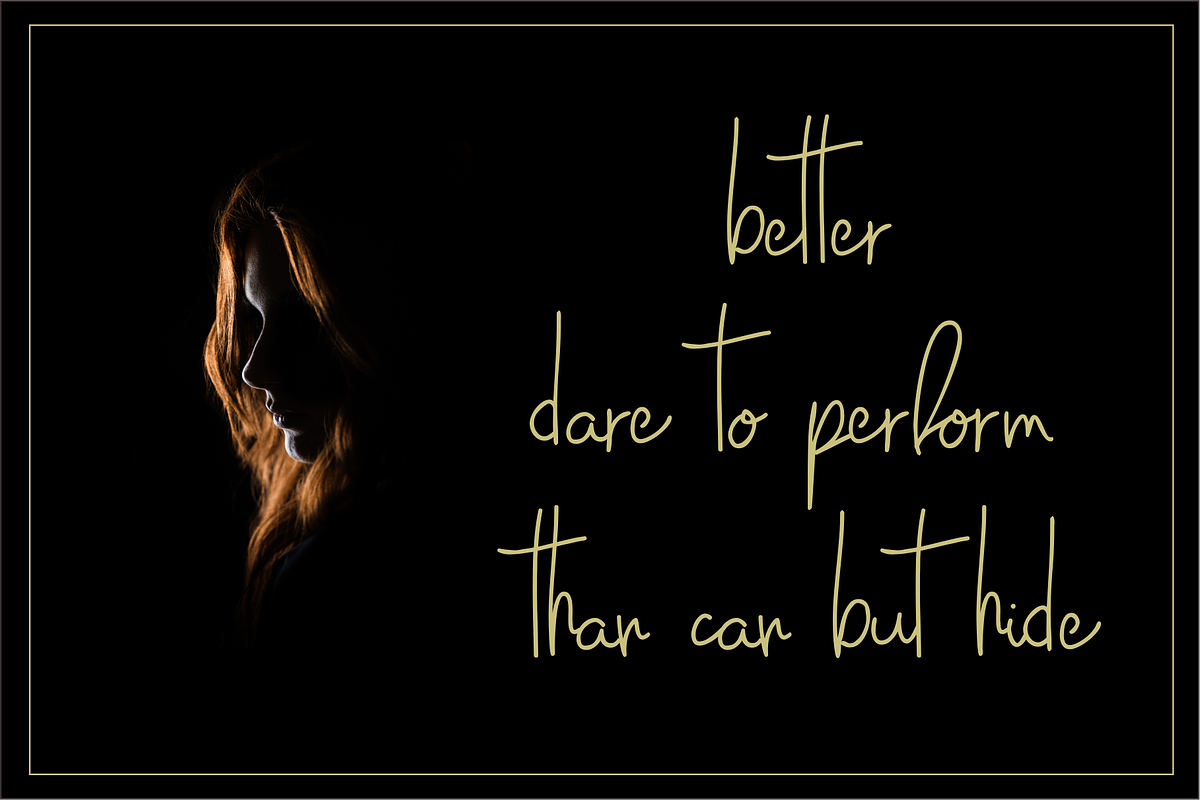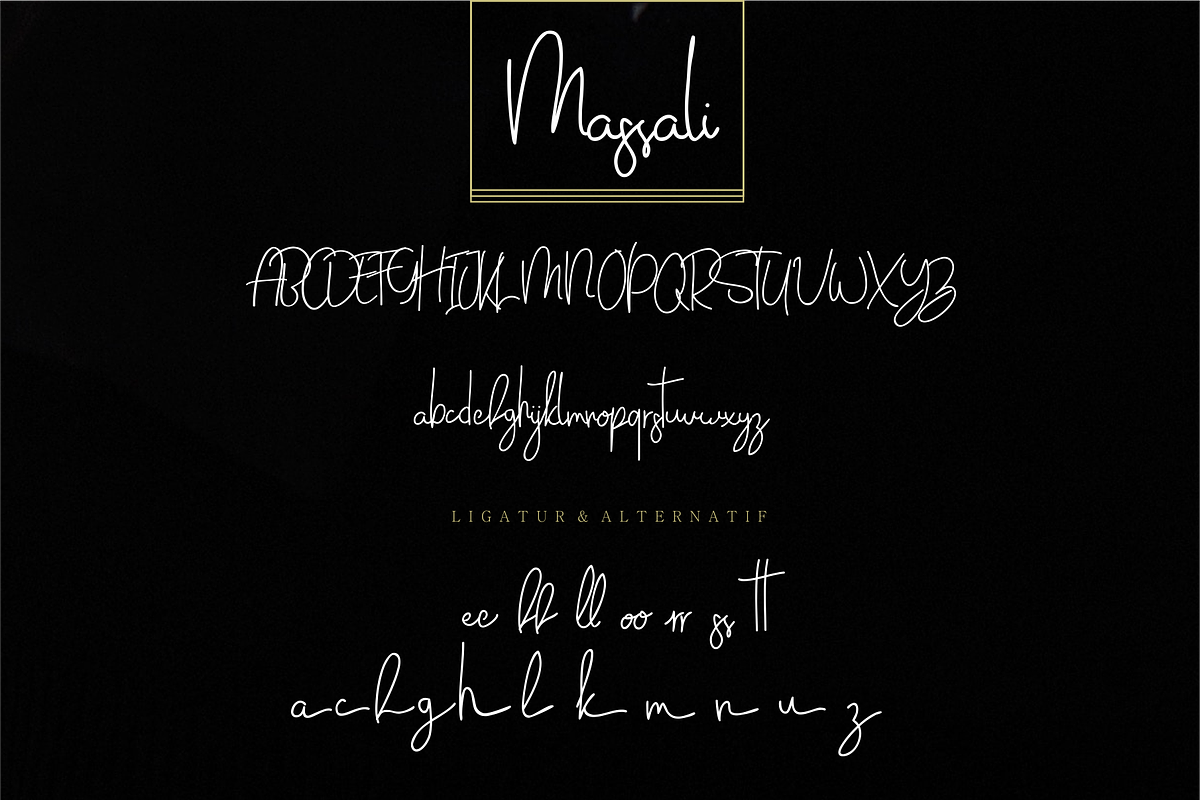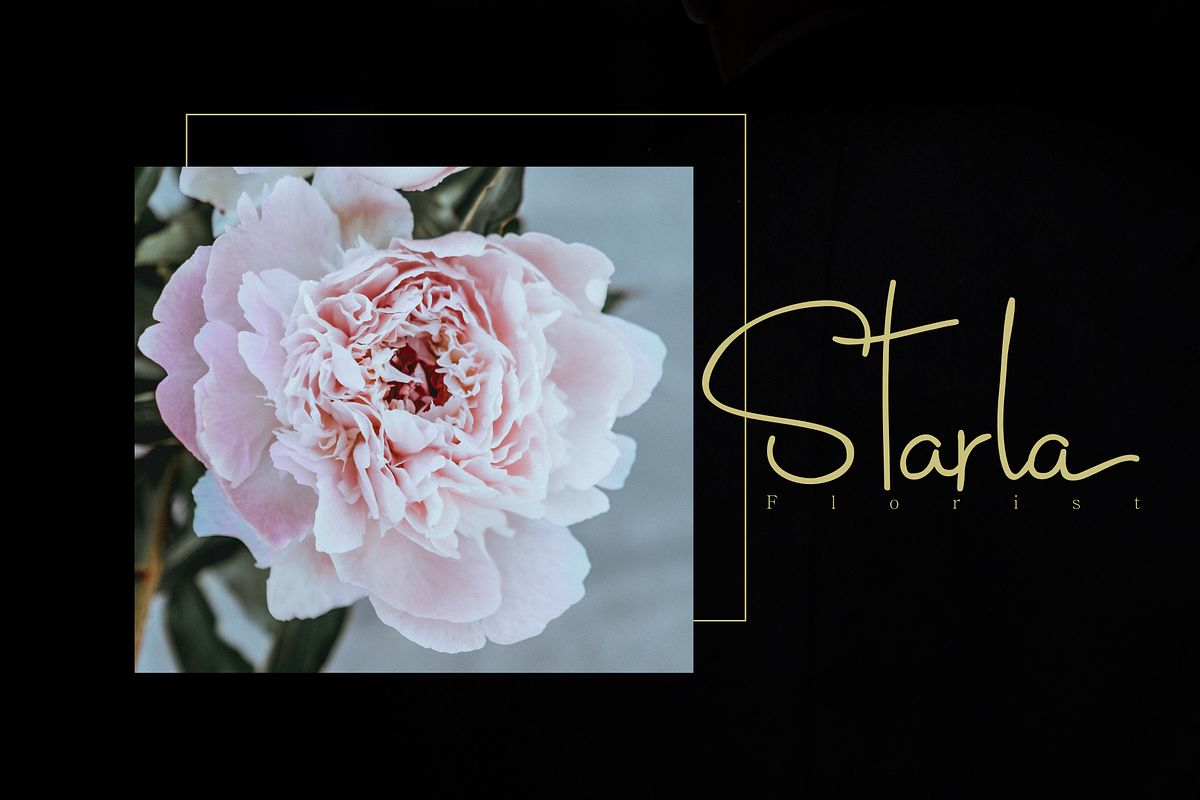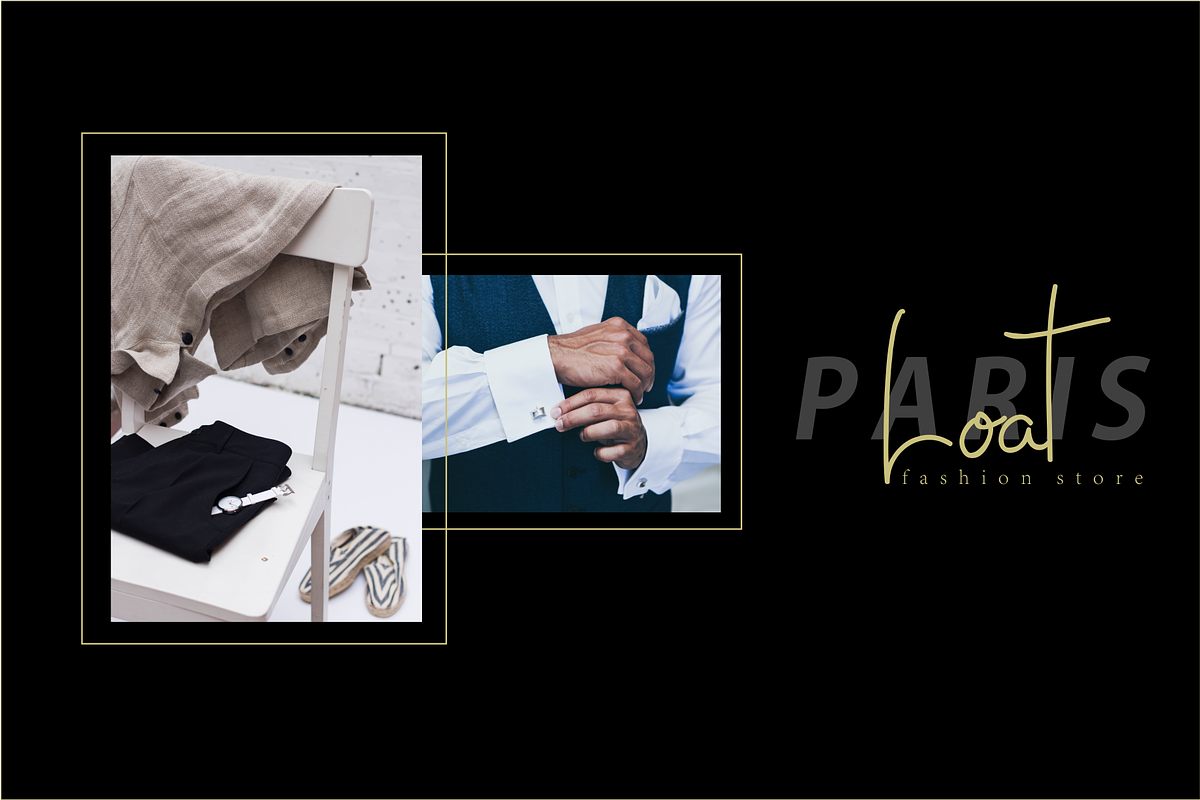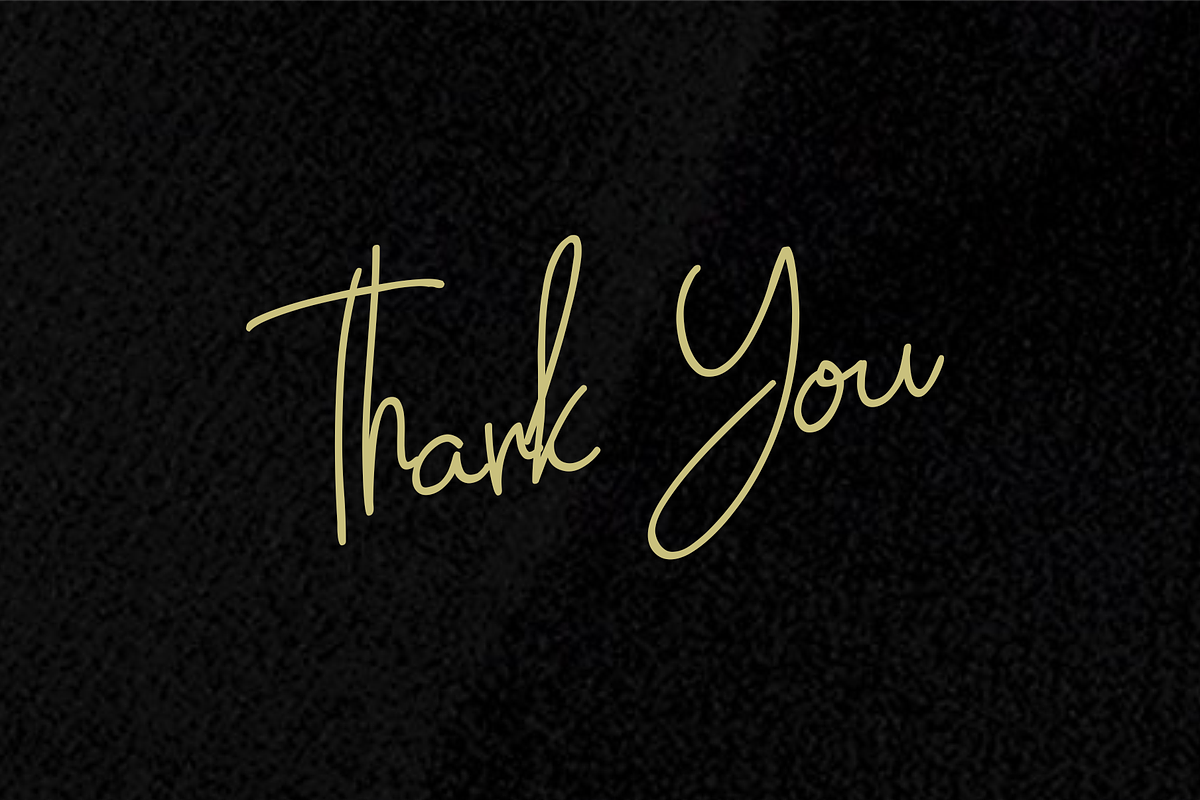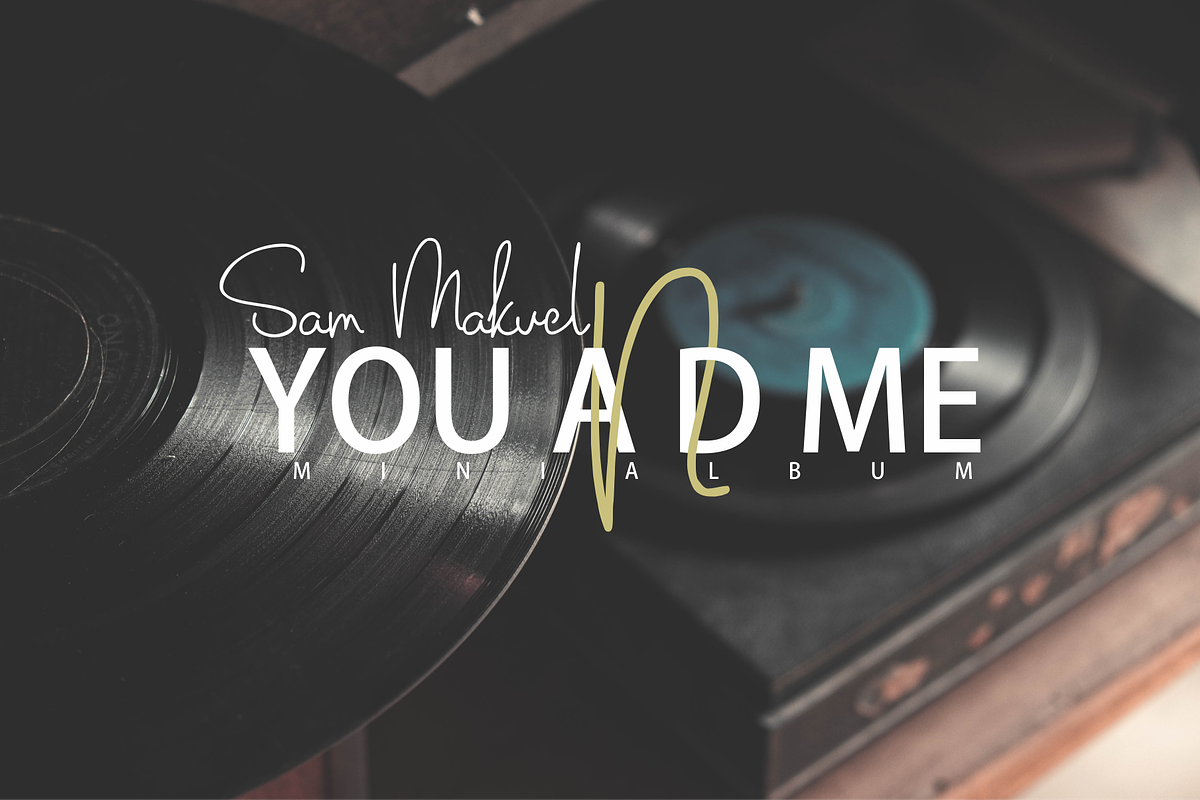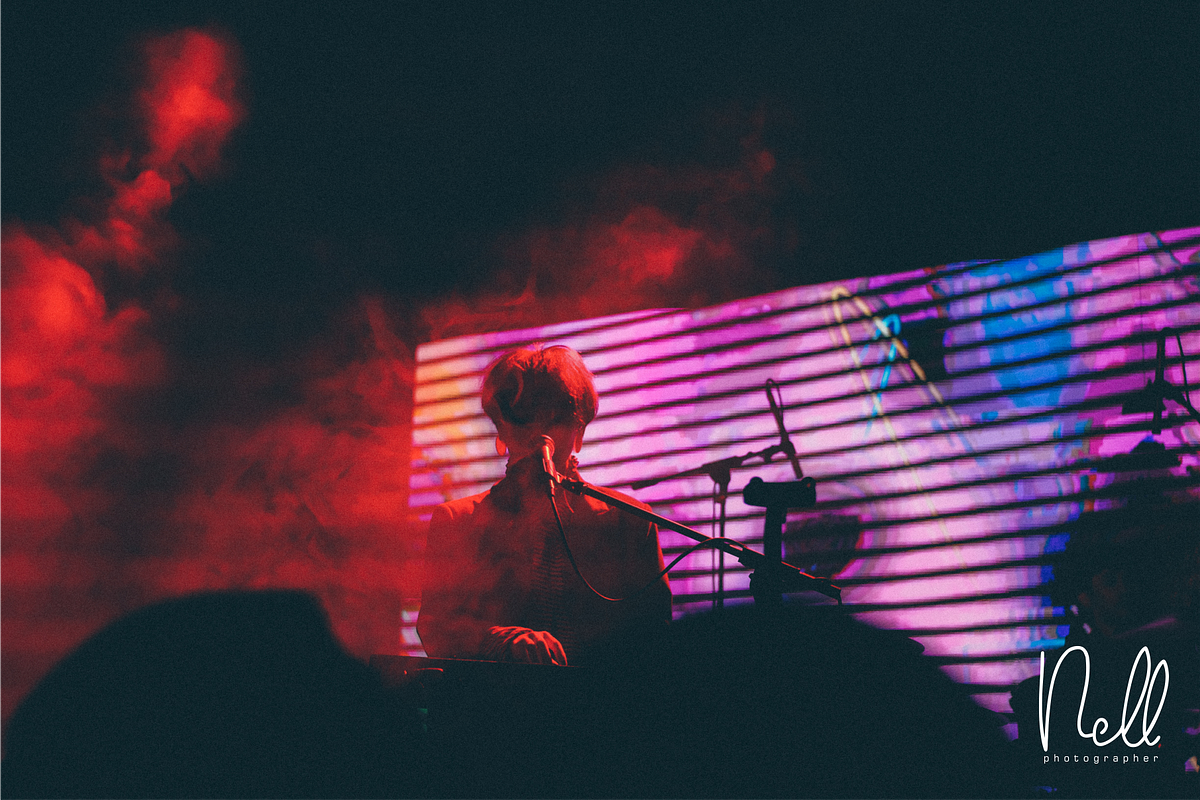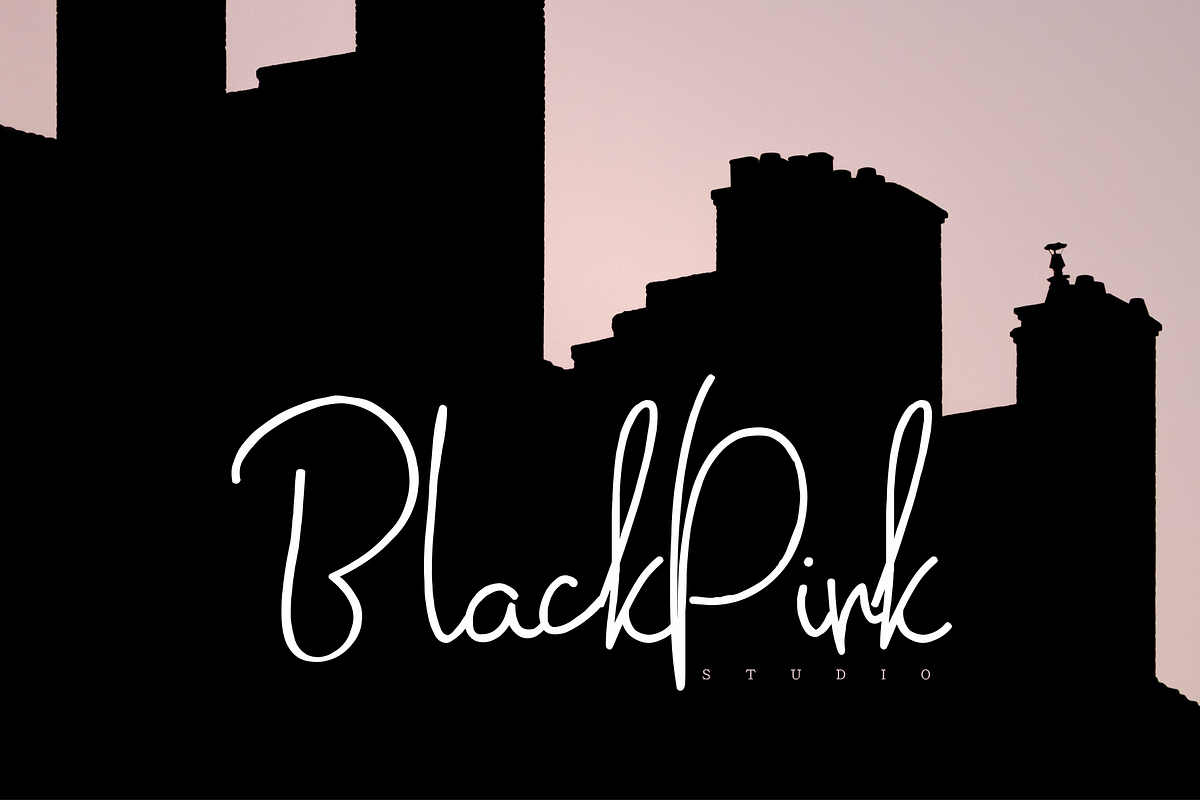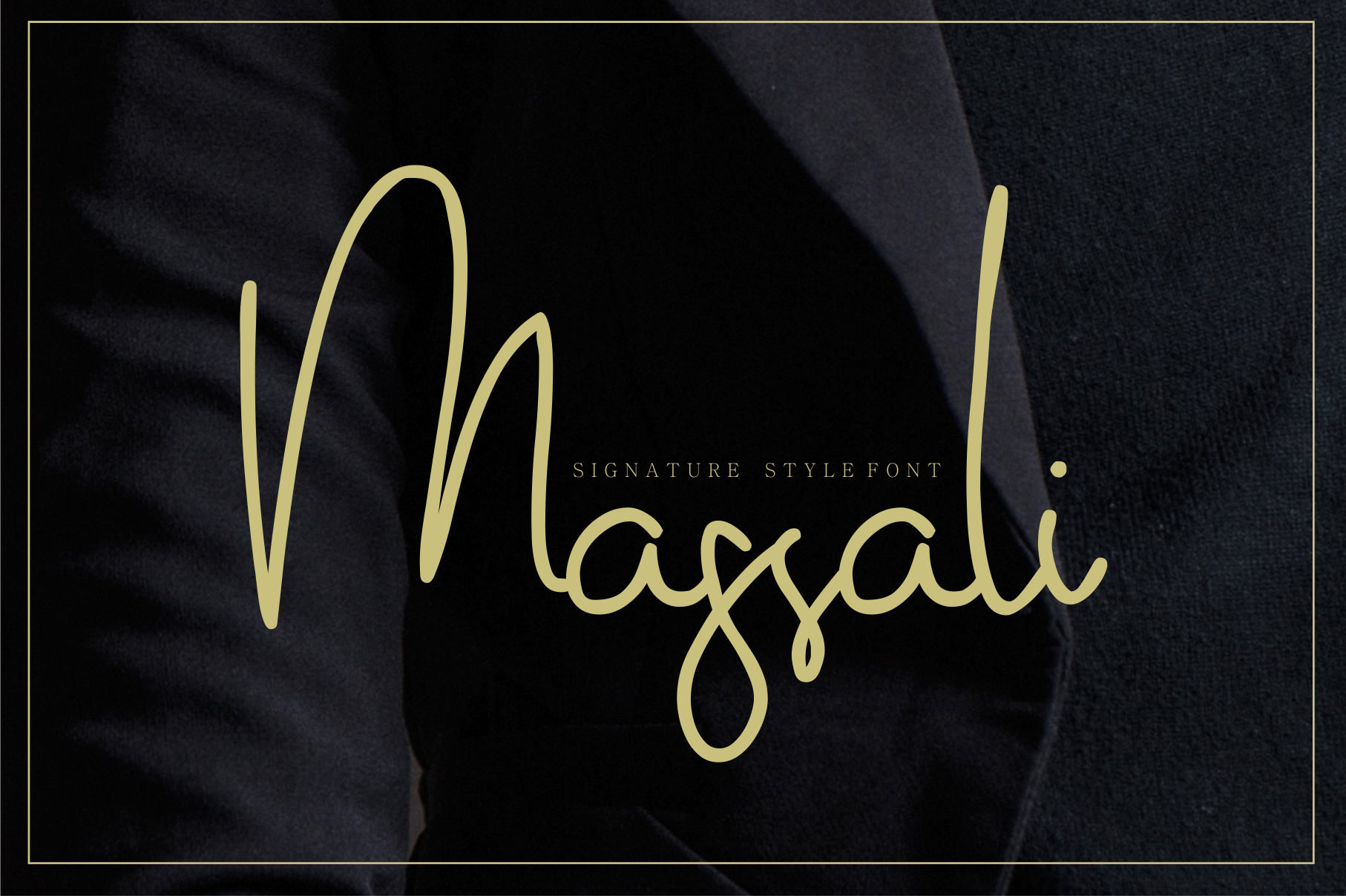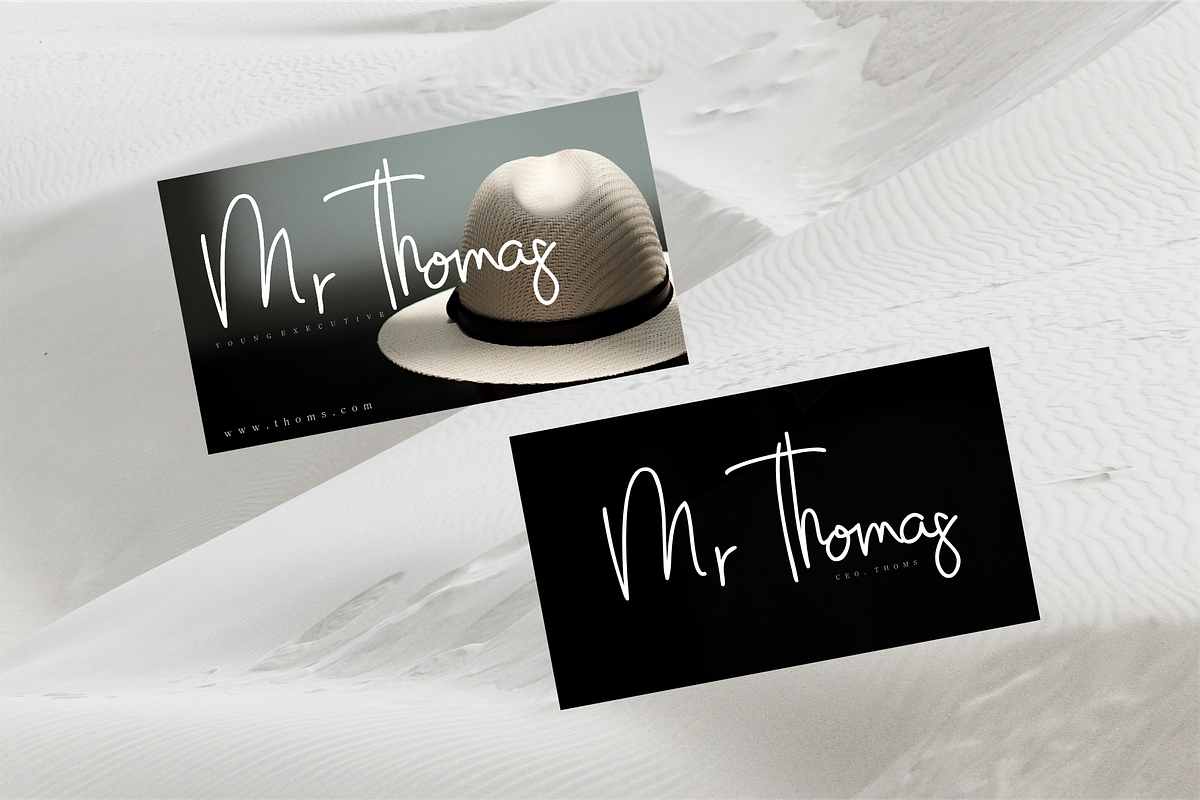
Massali Font
Hello Introduce massali, massali font is elegant signature style font and has fiture ligature and alternative font, let look more elegant, classy, harmonious, stylish, young easy to read and multipurpose. The font in is perfect for logotype, watermark photography, sign design, quotes, invitation covers, business cards, albums and more.